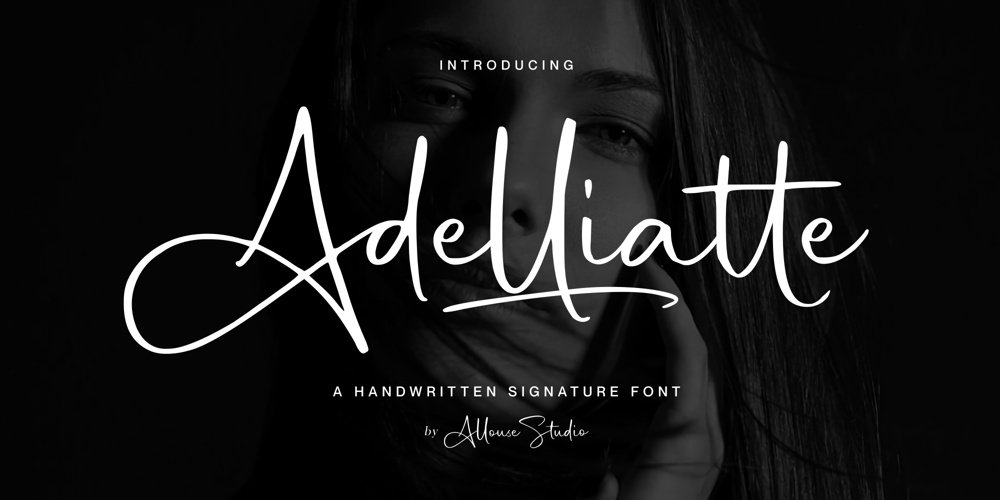
Adelliatte Font Family was designed by Fachrizal Yusuf and published by Allouse Studio. Adelliatte contains 1 styles and family package options. Proudly Presenting, Adelliatte A Handwritten Signature Font.Adelliatte is perfect for any titles, logo, product packaging, branding project, megazine, social media, wedding, or just used to express words above the background.Adelliatte also come with Multi-Lingual Support.Enjoy the font, feel free to comment or feedback, send me PM or email. Thank You!